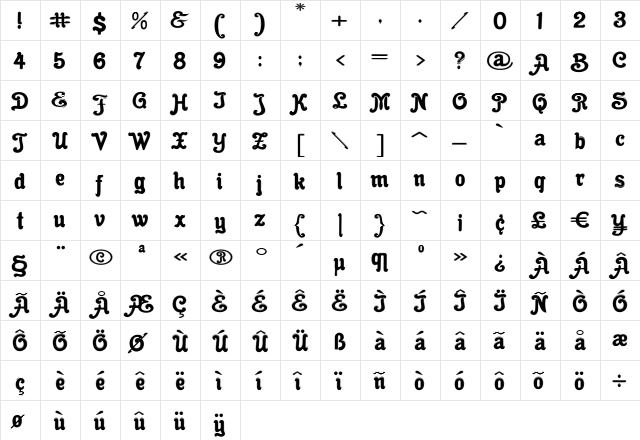
Cacao Fat Inline Regular
Design Context for Cacao Fat Inline Typeface
Cacao Fat Inline is built around its visual character rather than neutral utility — its distinctive forms are designed to make an impression at display sizes.
Font Pairing: Pair with a clean neutral sans-serif for body copy to let Cacao Fat Inline's character lead without overwhelming the composition.
Pro Tip: Use Cacao Fat Inline exclusively at display sizes — it was designed to be seen, not read at length. Let a neutral companion handle body copy.